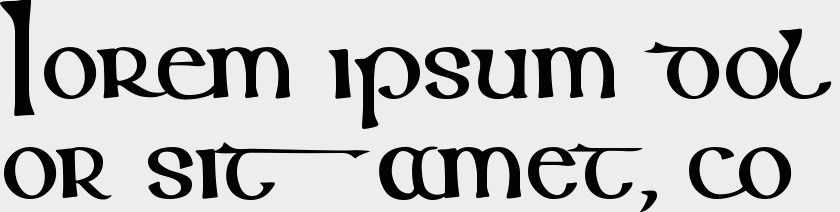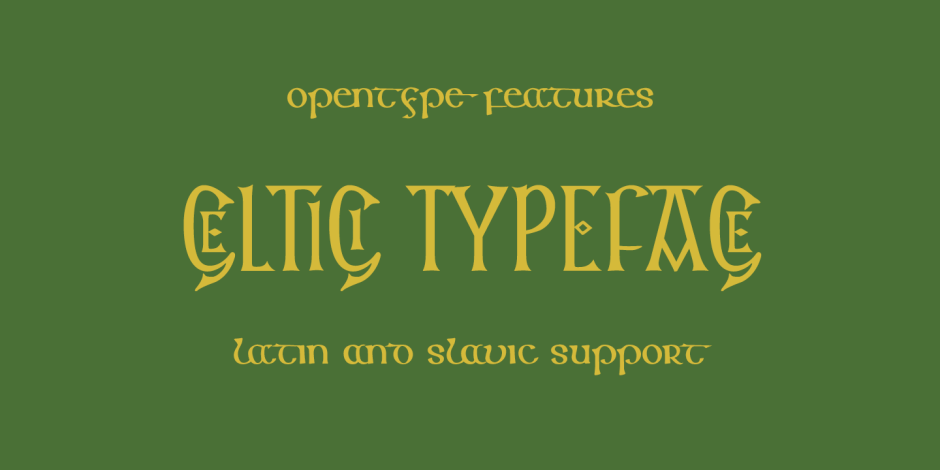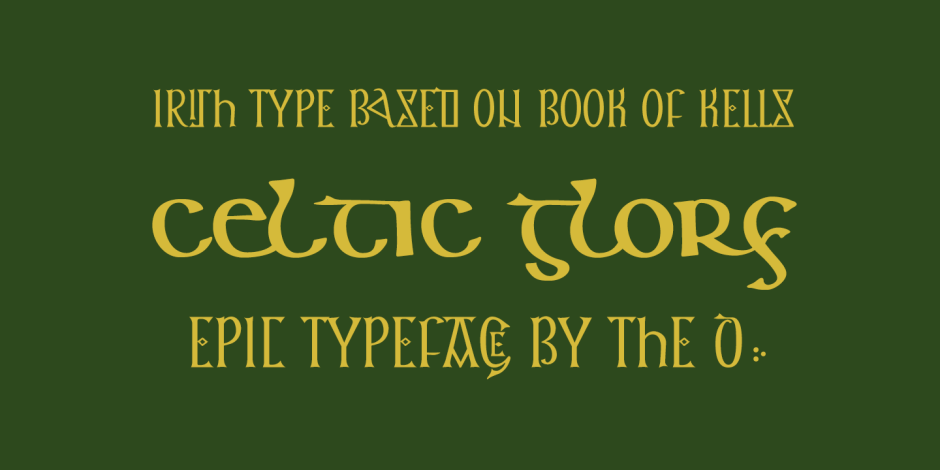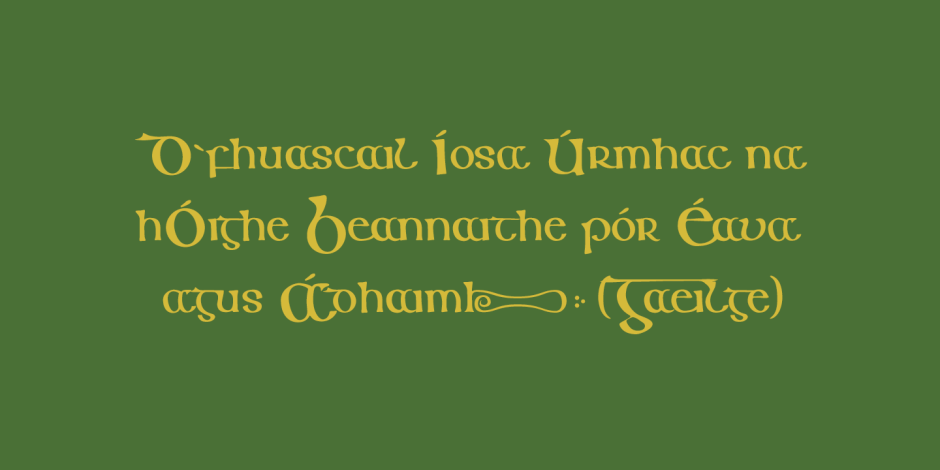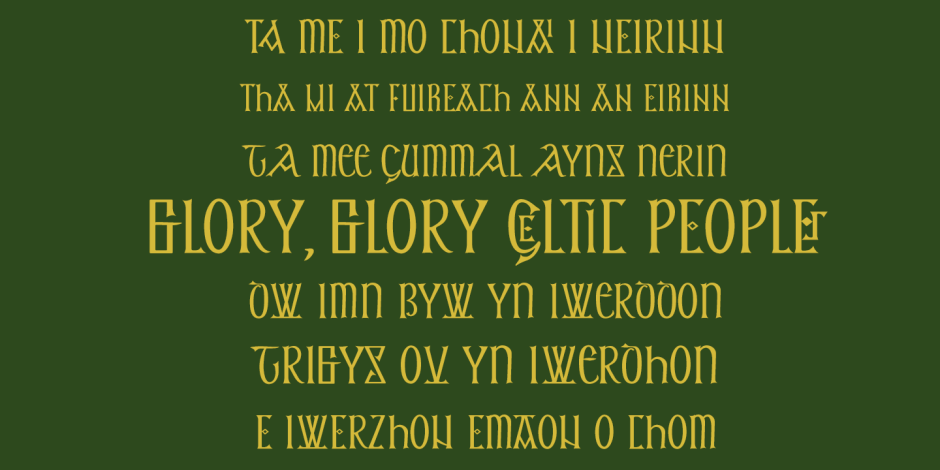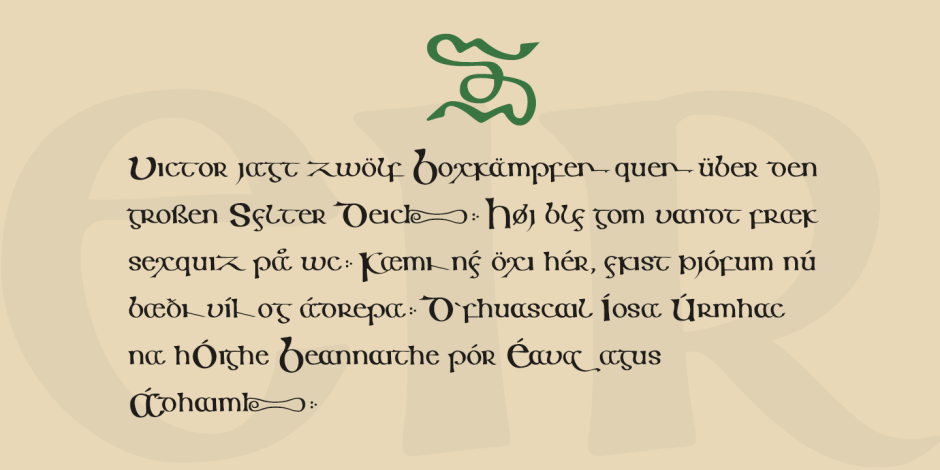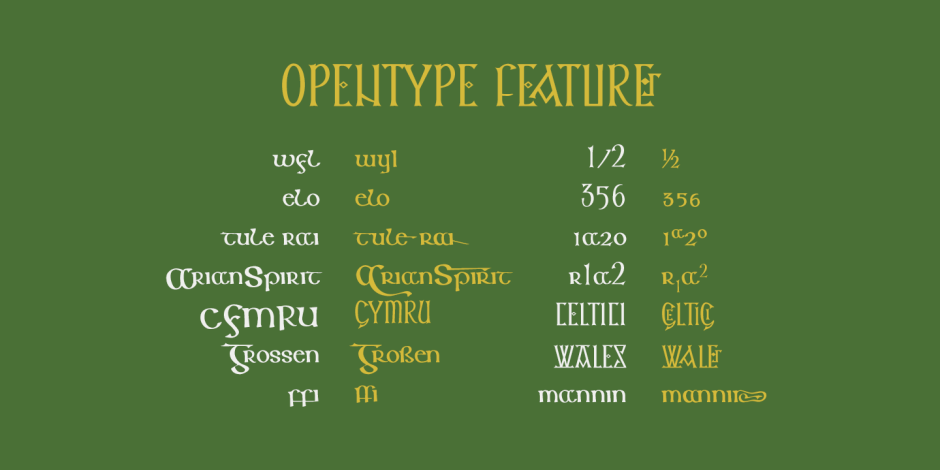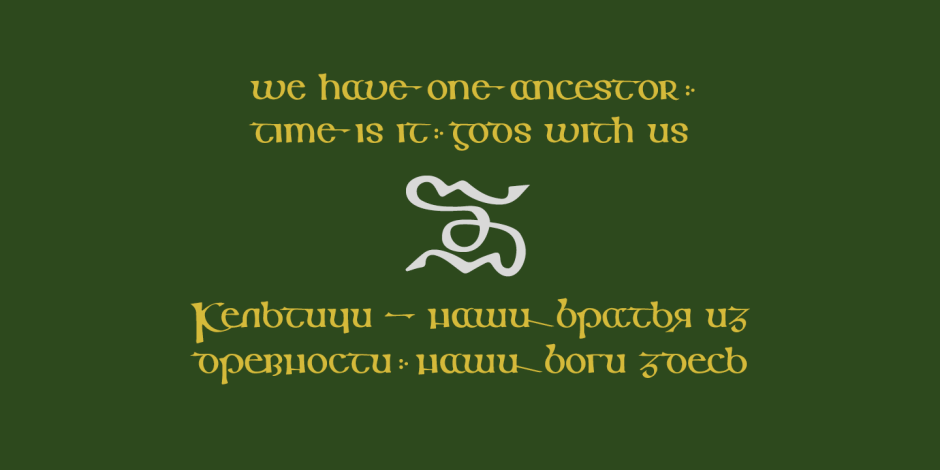
Keltichi
Keltichi typeface based on Book of Kells, the Irish uncial manuscript, the most beautiful European medieval style of writing. Keltichi contains many Opentype features, which make this font absolutely awesome. It looks great, specially titling uppercase sets, simulating the real Book of Kells scripts.
Work on this project lasted 1 year, and now, I believe, Keltichi it is the best font simulating the Book of Keels scripts.
Glory, glory to the Celts!